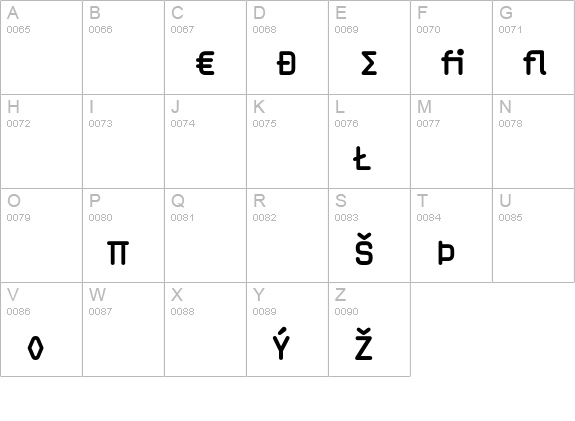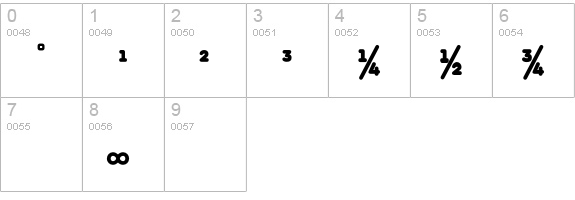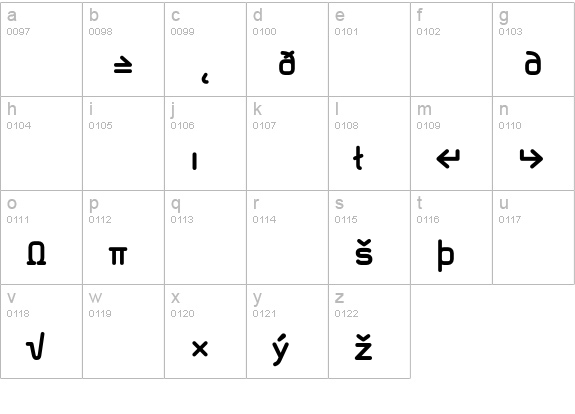
MagdaClean-BoldExpert Font Details
Introducing MagdaClean-BoldExpert, a captivating and dynamic font that exudes confidence and professionalism. With its bold and expertly designed letterforms, this font commands attention and adds a touch of sophistication to any project. MagdaClean-BoldExpert is the perfect choice for those seeking a font that combines strength and elegance. Its clean lines and distinctive curves make it ideal for a wide range of applications, from headlines and logos to branding and packaging. Whether used in print or digital media, this font will leave a lasting impression. But what sets MagdaClean-BoldExpert apart from other fonts is that it is freely available to download at FontsMarket.com. Yes, you read that right - this exceptional font can be yours without any cost. FontsMarket.com is renowned for offering high-quality fonts for free, and MagdaClean-BoldExpert is no exception. By offering MagdaClean-BoldExpert as a free download, FontsMarket.com enables designers, creatives, and enthusiasts to access a premium font without breaking the bank. This font is a testament to the idea that great design should be accessible to all. So, why wait? Visit FontsMarket.com today and download MagdaClean-BoldExpert, the font that combines power, elegance, and affordability. Elevate your projects and make a bold statement with this extraordinary typeface.